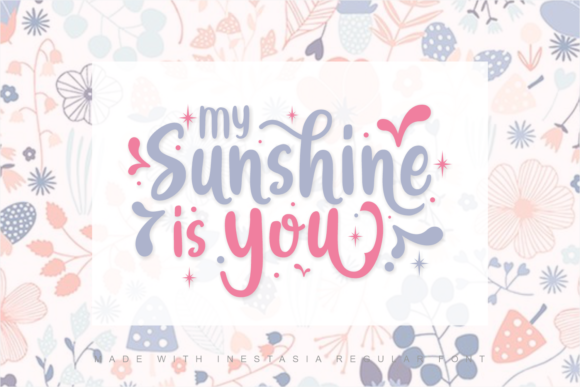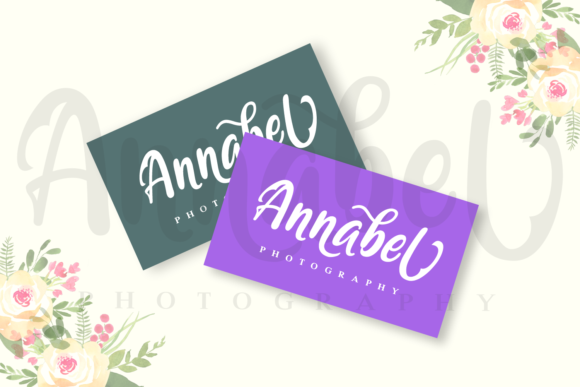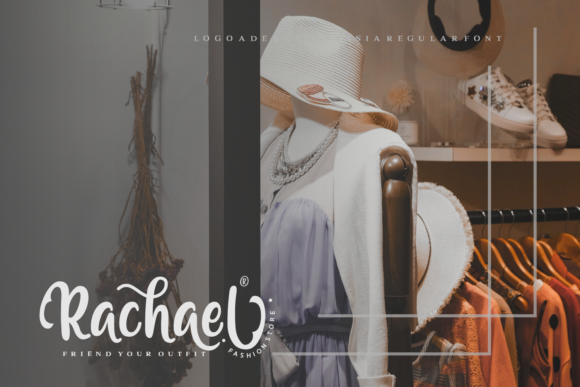
Introduction to Inestasia Font
Inestasia is a handwritten script font with plenty of dramatic curves.
Get inspired by its playful charm .
Key Features of Inestasia Font